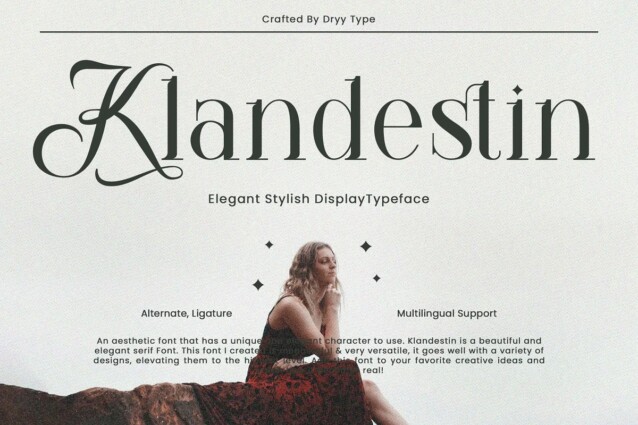
Klandestin Font
Klandestin Font is a combination of stylish script as uppercase and classic all caps serif as lowercase. This font is perfect for creating logo, print template like a poster, branding, wedding invitation, quote, or anything else. Add this font to your favorite creative ideas and watch how it becomes real!